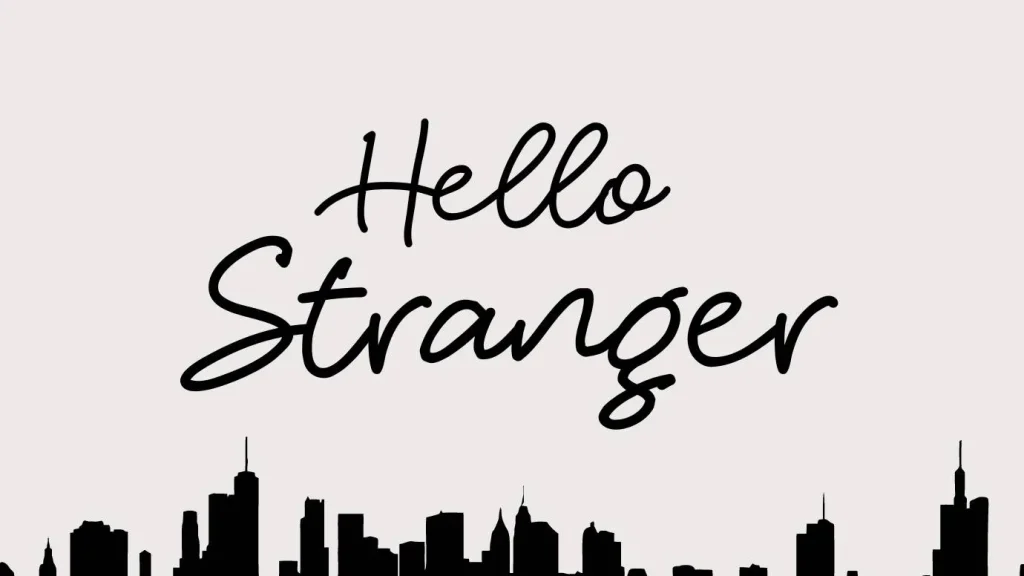
Hello Stranger Font is a nice script style that Saridezra created. For individuals who are seeking a contemporary and sleek typeface, this style is a fantastic option.
This typeface may provide competence, particularly when utilized as professional typography or in contemporary, simple designs. This typeface may be used for traditional and web applications.
Where to Use Hello Stranger Font?
This is one of the best-looking fonts available right now. This nice design is dominant in format because it is tough and highly strong. In terms of trademarks, headers, and layout design, it makes a superior choice.
A typeface with capitals and exclamation. It is one of the most beautiful free contemporary fonts accessible because each letter is properly placed within a square area, giving the spaces between every letter distinct and reliable. The icons have some compression, which makes it easier to fit on a screen. The text may also influence branding plans, household goods design, and marketing materials.
The style has a unique design that makes it perfect for creating banners, posters, and any other task that needs a unique design.
Characters of Hello Stranger Font
Who designed the Hello Stranger font?
Saridezra created Hello Stranger typeface. It is a script style.
Is the readability of the Hello Stranger typeface good?
The font comes with a sizable character set and distinctive glyphs. This typeface is excellent since it is simple to read.
Where can I use Hello Stranger typeface?
You can also create a stunning YouTube thumbnail. In terms of trademarks, headers, and layout design, it makes a superior choice.